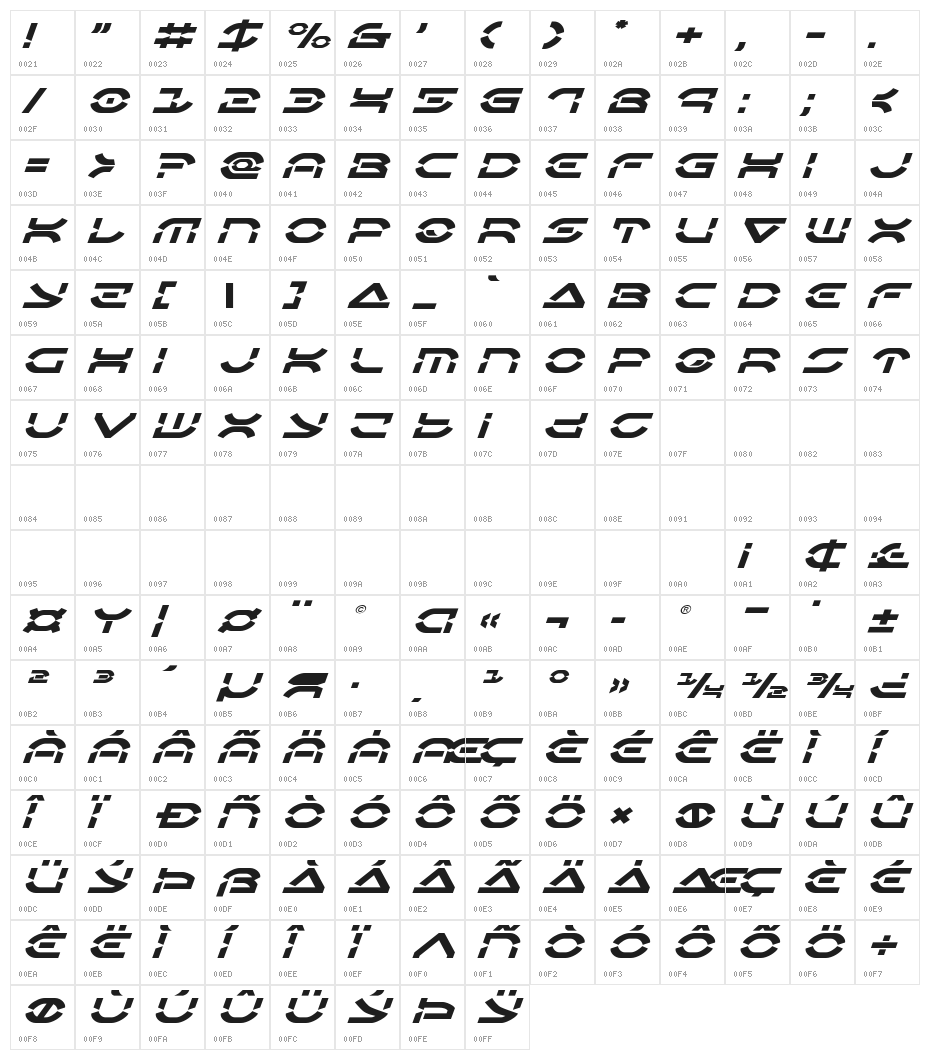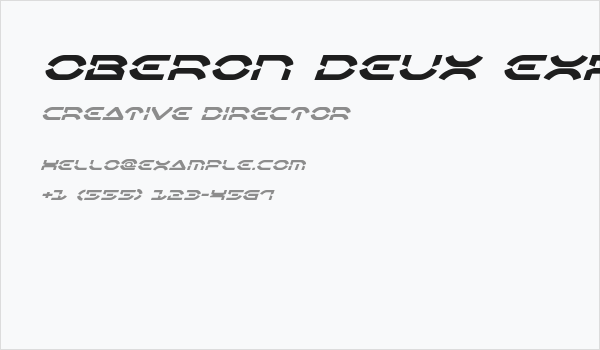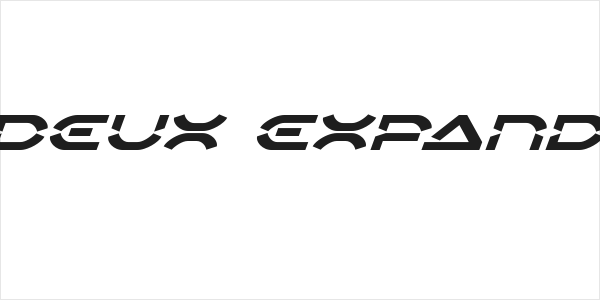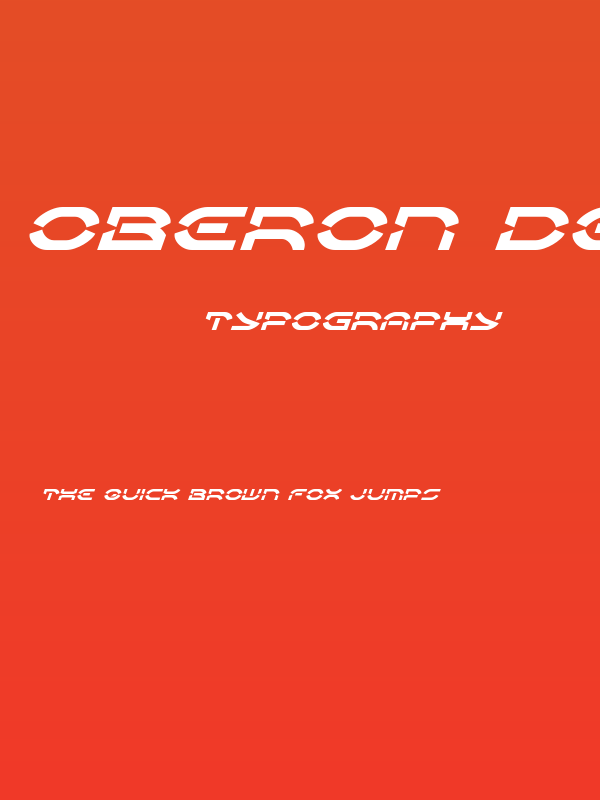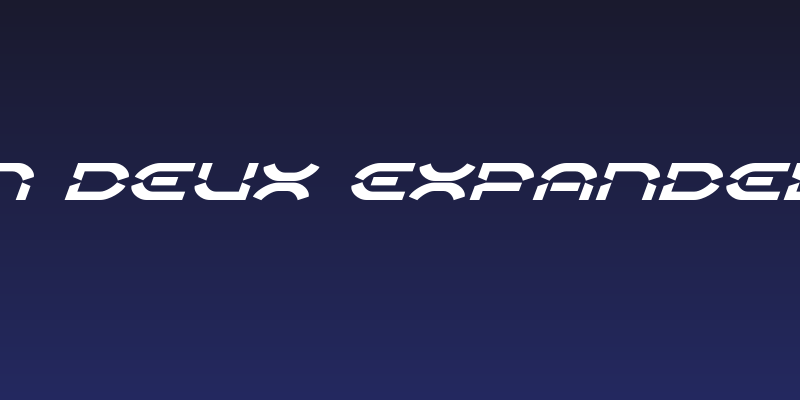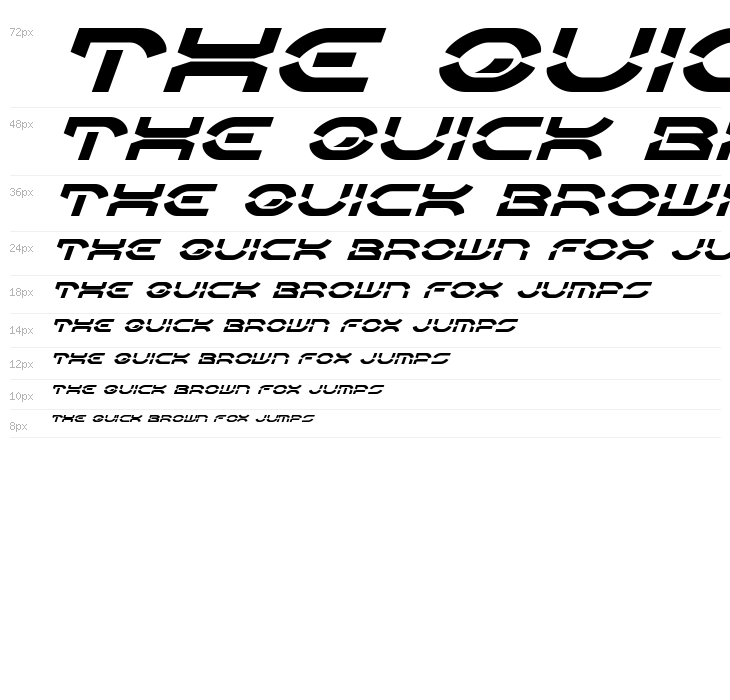
Oberon Deux Expanded Italic Font
Oberon Deux Expanded Italic Description
This font features a futuristic and dynamic design, characterized by its bold and angular letterforms. The characters are expanded and italicized, giving them a sense of motion and energy. The geometric shapes and sharp edges create a modern and edgy appearance, making it stand out in any design. The uppercase and lowercase letters maintain a consistent style, with unique cuts and angles that add to the font's distinctive look. The numbers and special characters follow the same design principles, ensuring a cohesive visual language throughout.
| Proposed Projects | Ideal for sci-fi themed projects, technology branding, video game titles, and modern advertising campaigns. |